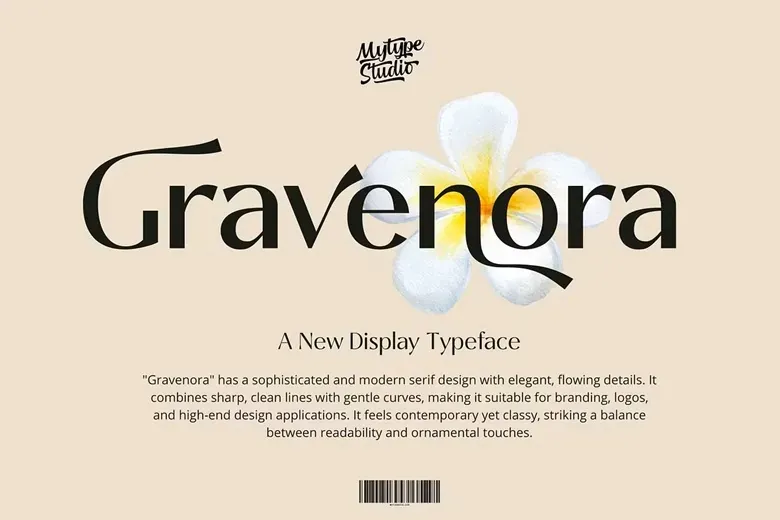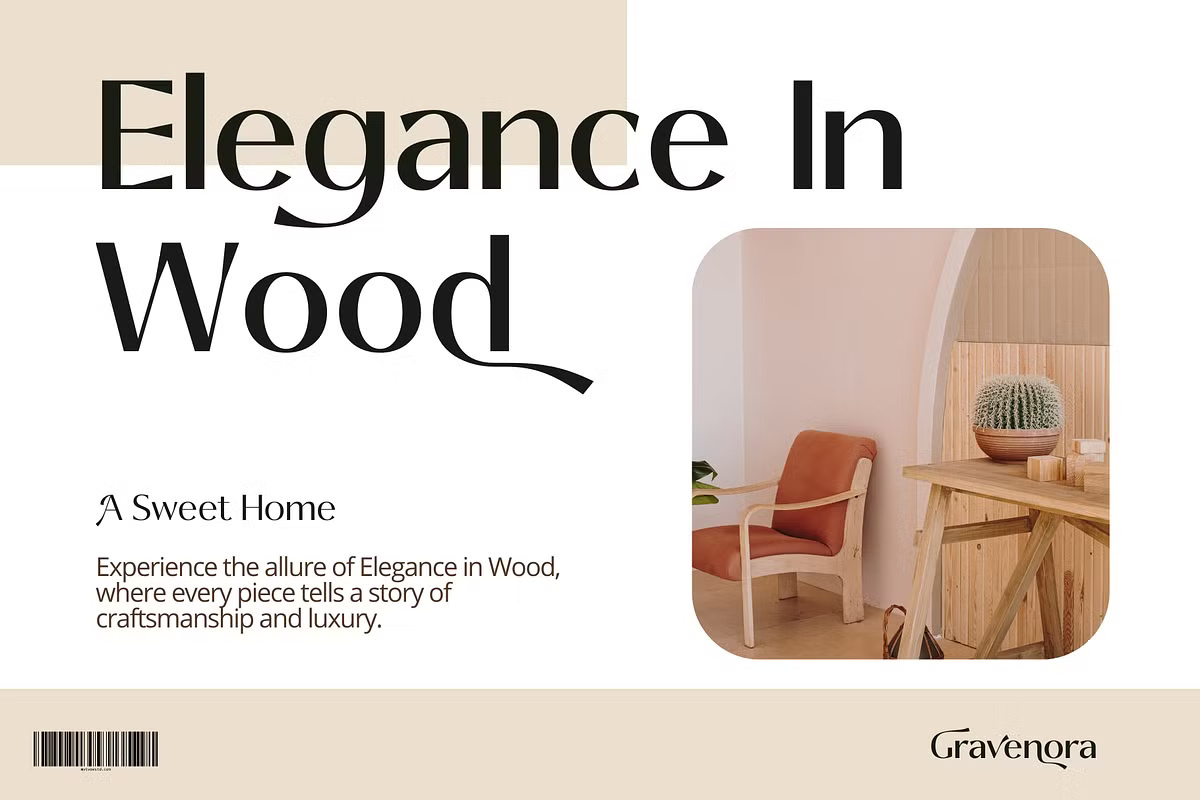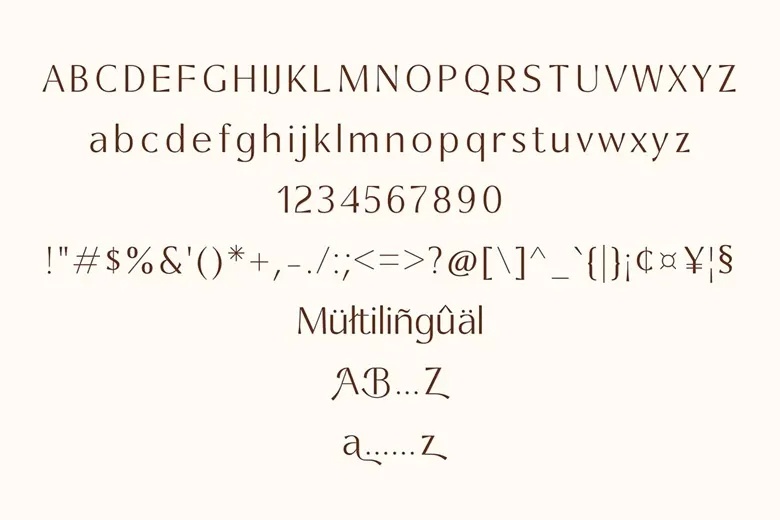
Gravenora Font
Gravenora is a meticulously crafted serif display typeface that elevates your design to a new level of sophistication. Its elegant and refined character makes it ideal for luxury branding, striking logos, upscale editorial layouts, and exquisite invitations.
Gravenora Display Font